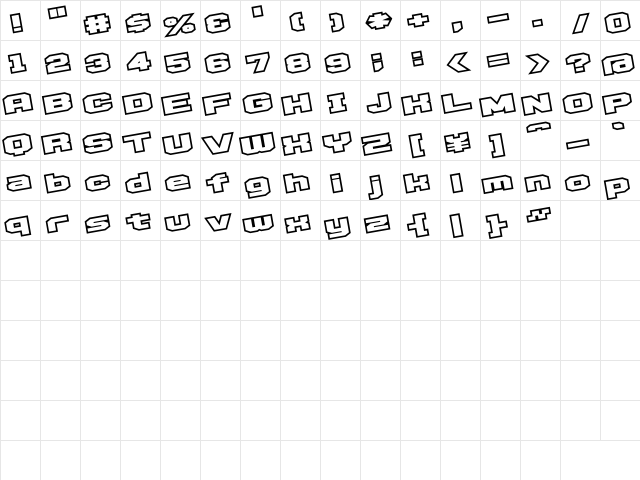
D3 Egoistism outline leaning Regular
Design Context for D3 Egoistism outline leaning Typeface
D3 Egoistism outline leaning brings ornamental detail and strong personality to headlines and identities, where visual impact matters more than quiet functionality.